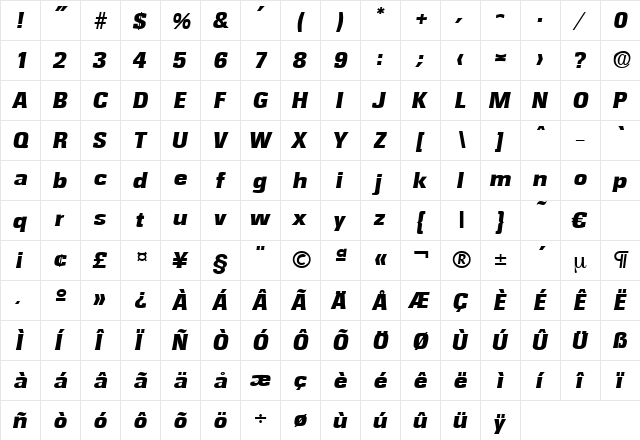
Rochester-ExtraBoldIta Regular
Design Context for Rochester-ExtraBoldIta Typeface
Rochester-ExtraBoldIta takes a measured approach to typography — its balanced proportions and neutral character make it a reliable workhorse for both digital and print work. Its bold stroke weight gives it real presence on the page.